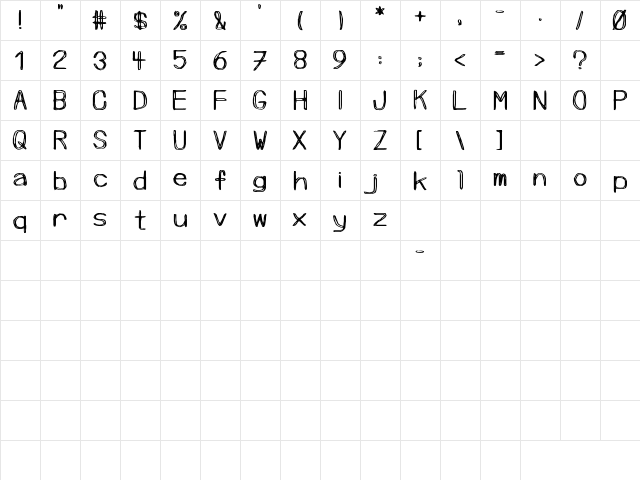
peels slip Font Preview
peels slip
peels slip Font Details
Design Context for peels Typeface
peels takes a measured approach to typography — its balanced proportions and neutral character make it a reliable workhorse for both digital and print work.